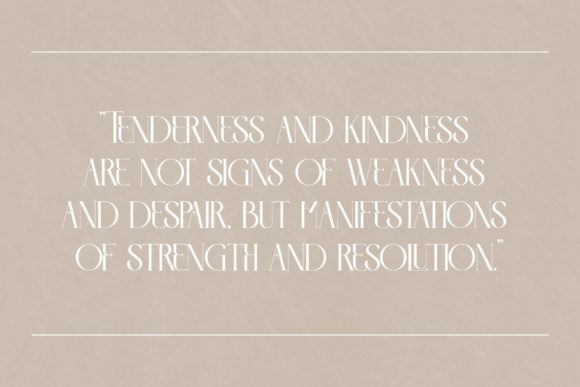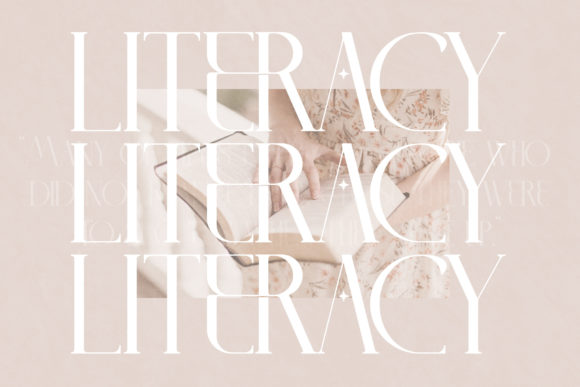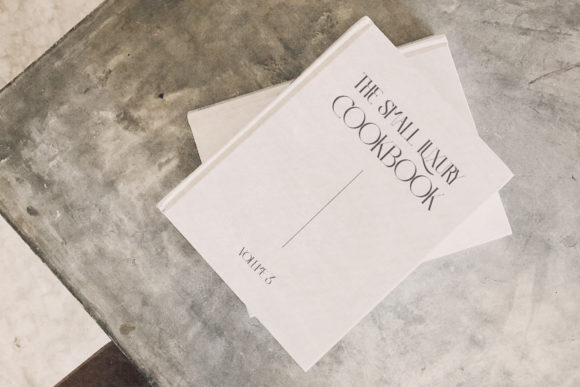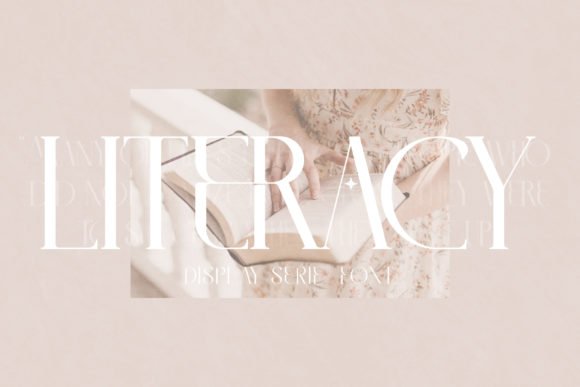
Introduction to Literacy Font
Literacy is a modern and classic serif font with its own unique style and modern appearance.
This typeface is perfect for an elegant & luxury logo, book or movie title design, fashion brand, magazine, clothes, lettering, quotes, and so much more .
Key Features of Literacy Font
Why Choose Literacy Font?
Literacy Font offers exceptional quality and versatility, making it a valuable addition to your design toolkit. Whether you’re creating for personal projects or commercial use, Literacy Font delivers professional results.